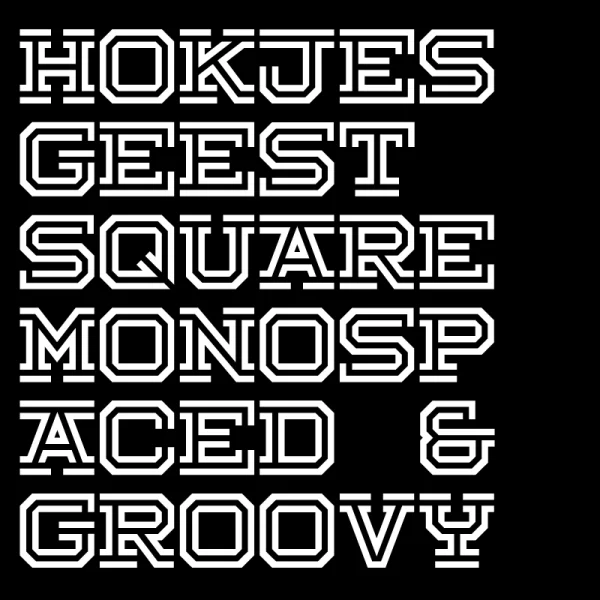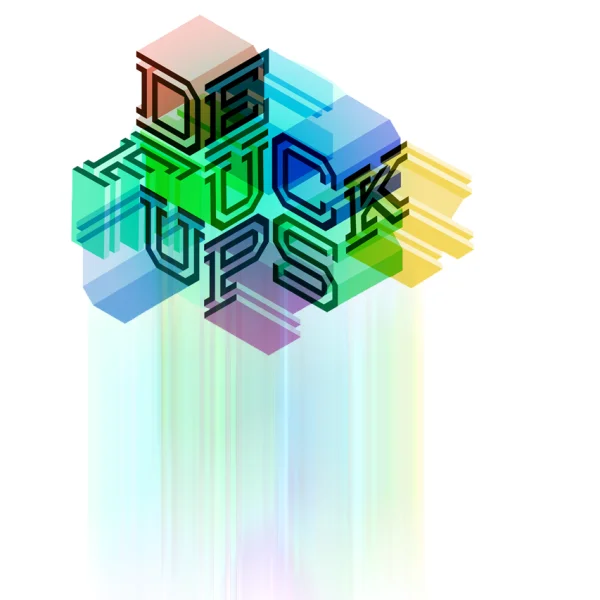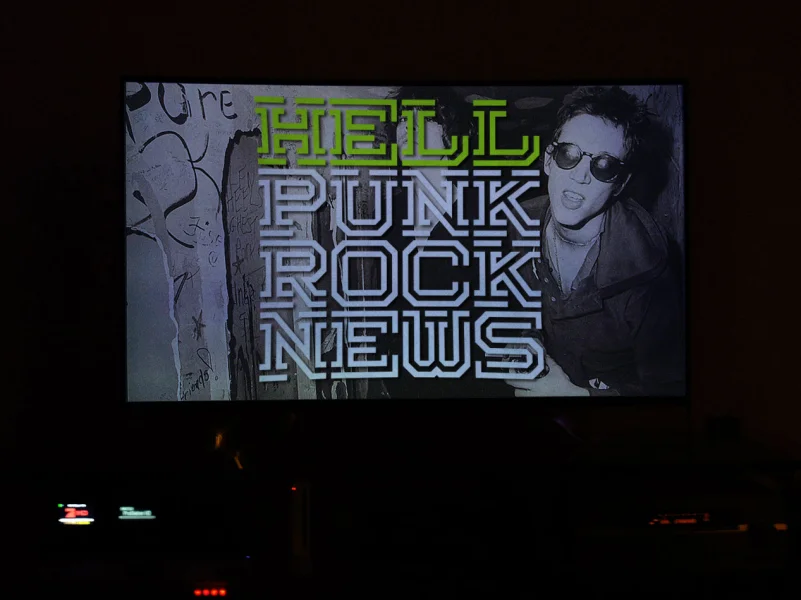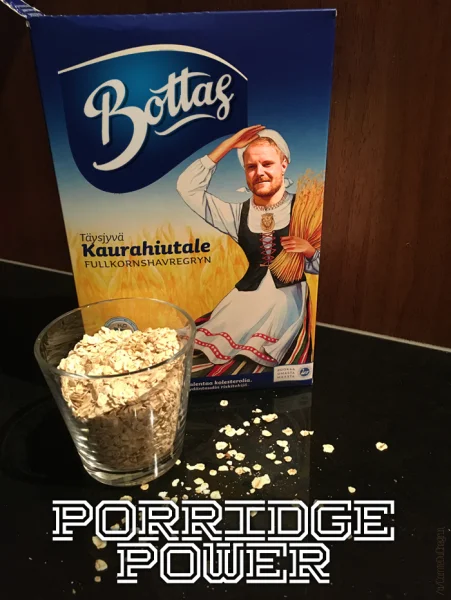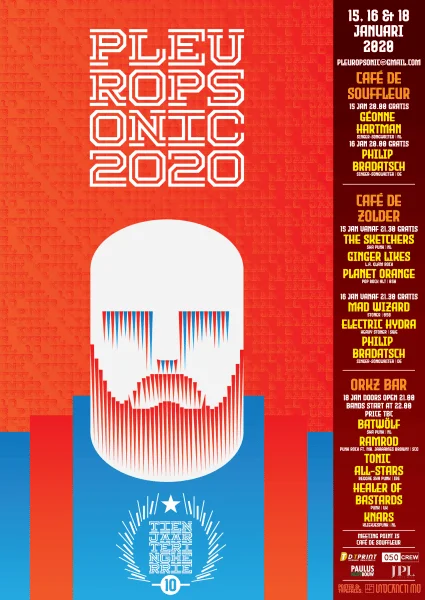
I made a logo for the science department of my punk band De Fuckups (www.defuckups.com) and I needed a perfectly square, monospaced font, so I could make cubes out of it. Later, I made an entire alphabet. No fancy stuff or interpunction, just the alphabet. I also made a 3D-ish version, called HokjesgeestCube.